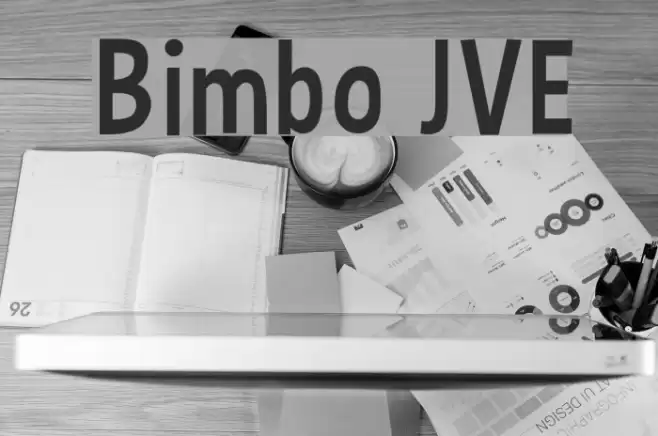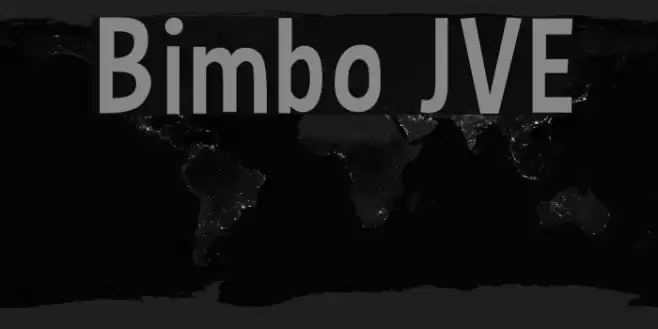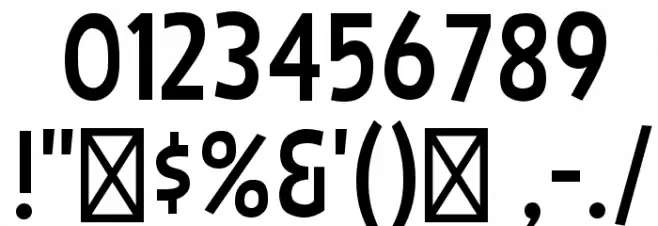
Bimbo JVE Font
Bimbo JVE Description
This typeface features a clean and modern sans-serif design, characterized by its bold and uniform stroke width. The letters are well-proportioned, with a slightly condensed appearance that enhances readability while maintaining a strong visual impact. The uppercase letters are tall and commanding, while the lowercase letters are rounded and approachable, creating a harmonious balance. The numerals are clear and distinct, ensuring easy legibility. Special characters are included, offering versatility for various applications. This font is suitable for both digital and print media, providing a contemporary and professional look.
A bold, modern sans-serif font with a clean and uniform design from Uncategorized fonts.
- Proposed Projects: Ideal for branding, advertising, headlines, and digital interfaces.
- Width: Condensed
- Use Case: Headlines, Logos, Digital interfaces